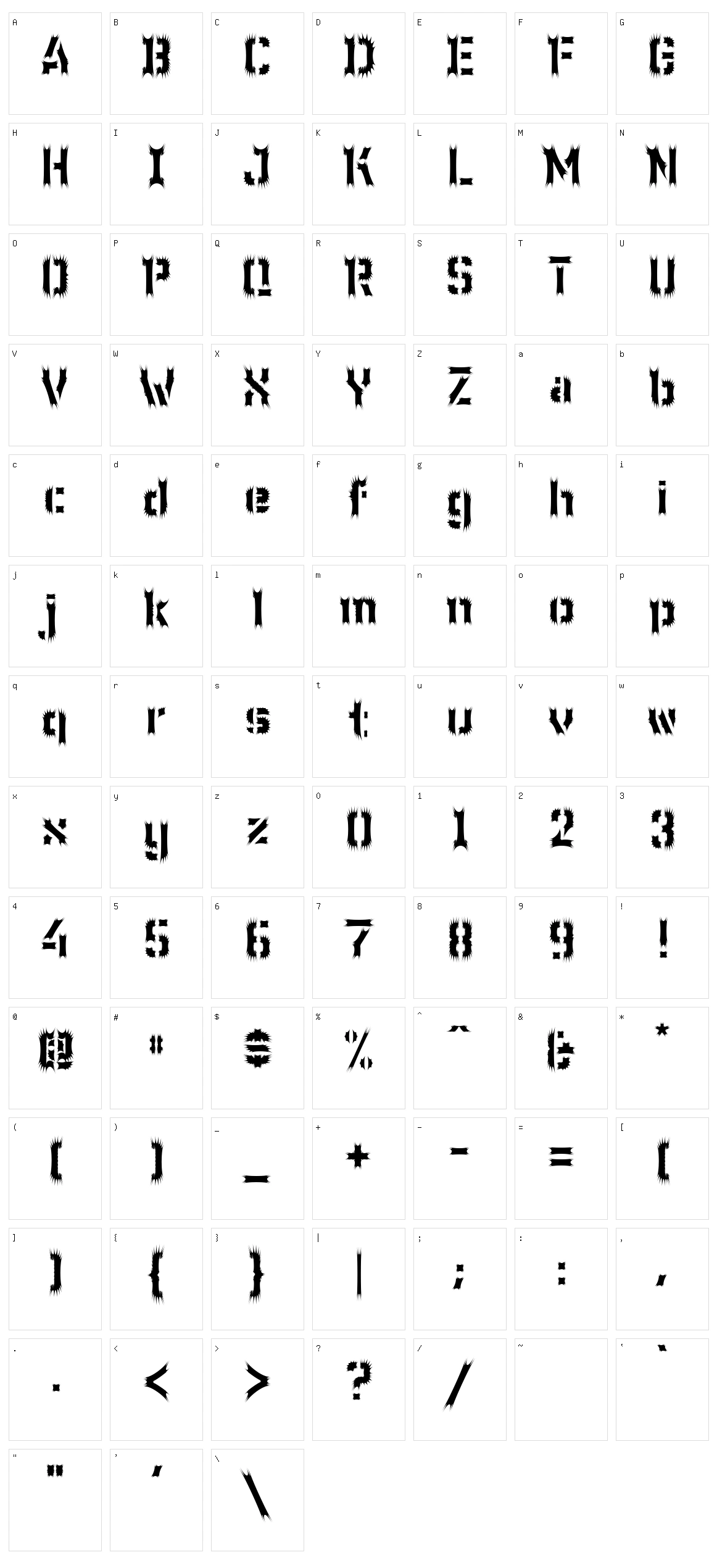
The free font WC Wunderbach Wimpern Bta is carefully designed by WC Fonts / Atypeek, showcasing a thoughtful balance of creativity and usability and belongs to the Gothic font family. When you download the ZIP file, it contains only 383.48 KB of font files, making it lightweight and quick to download. Please review the license details below to understand permitted usage and distribution rights. If license information is not available, we recommend using this font for personal projects only or contacting the author directly for commercial usage permissions.